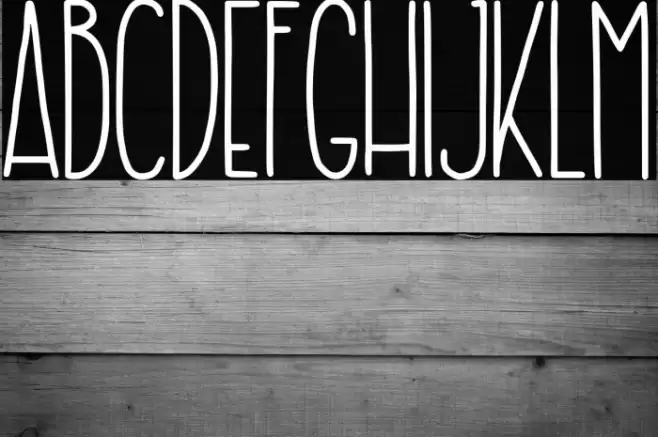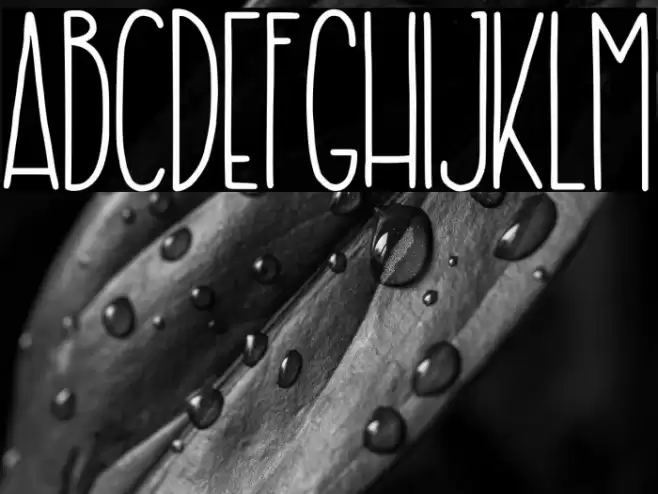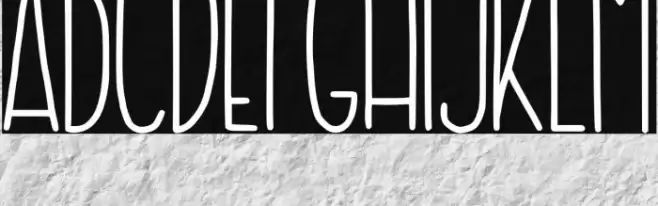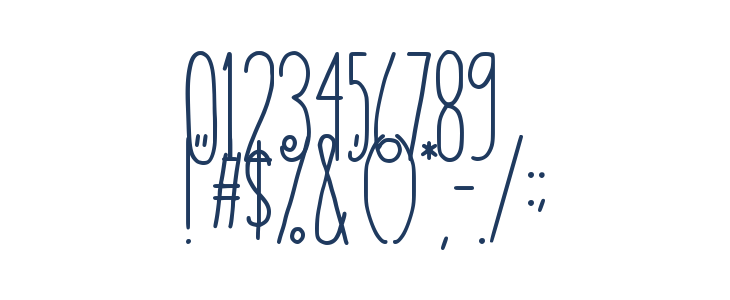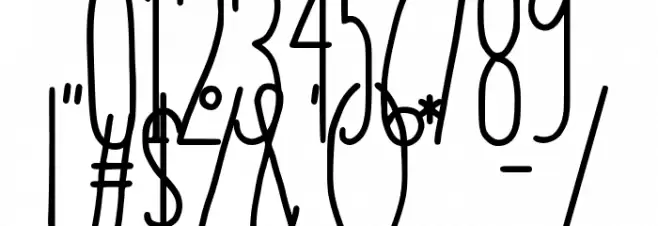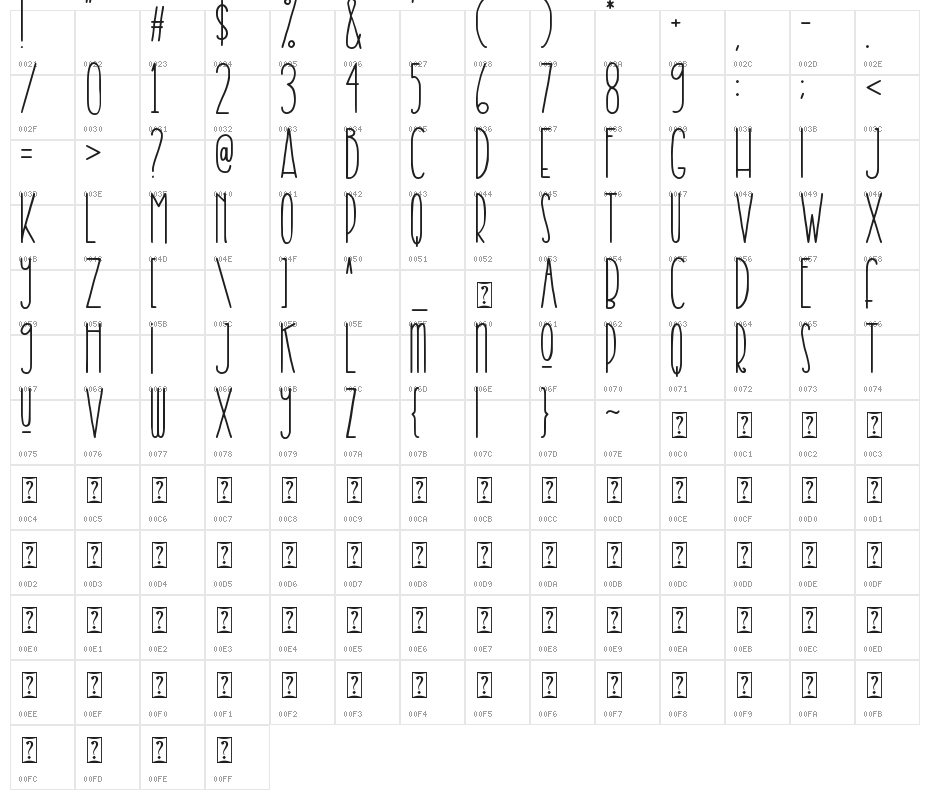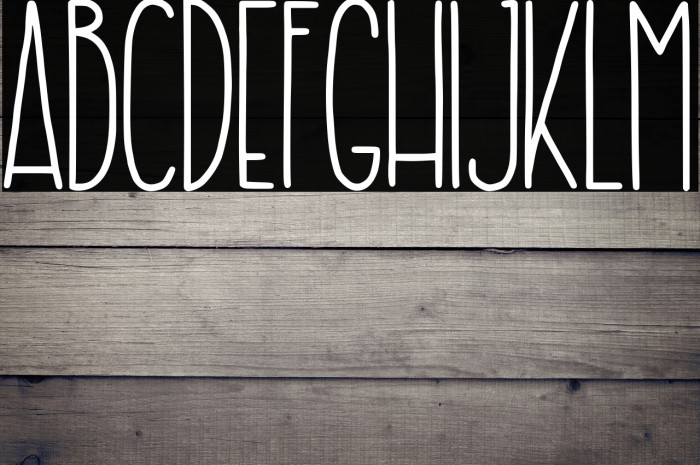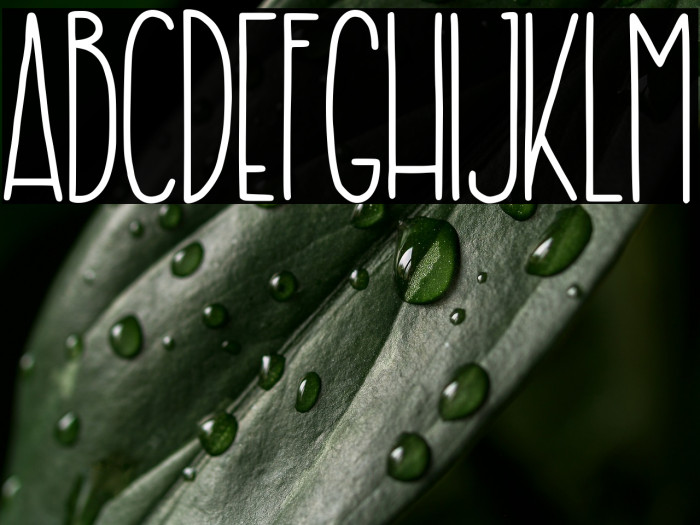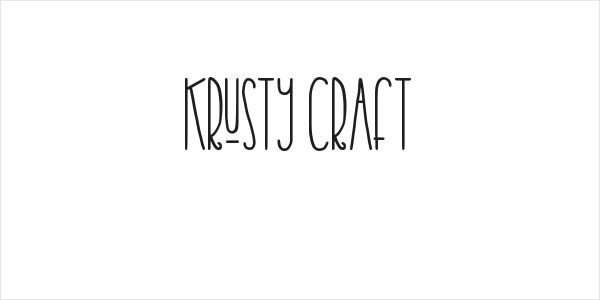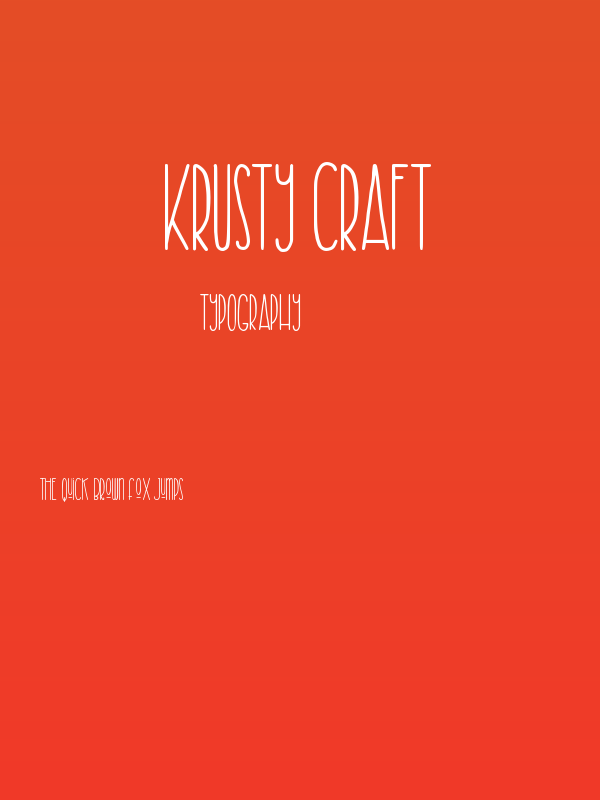
krusty craft Font
krusty craft Description
This font features a playful and quirky design with elongated, thin strokes that give it a whimsical and hand-drawn appearance. The characters are tall and narrow, with a unique charm that makes it stand out. The uppercase and lowercase letters maintain a consistent style, while the numerals and special characters complement the overall aesthetic. Its distinctive look is ideal for creative projects that require a touch of personality and fun.
A playful, hand-drawn font with elongated, thin strokes and a whimsical style from Uncategorized fonts.
- Font: krusty craft
- Proposed Projects: Ideal for children's book covers, playful branding, greeting cards, and creative posters.
- Weight: Light
- Overall Style: Whimsical
- Use Case: Logos, Posters, Creative projects